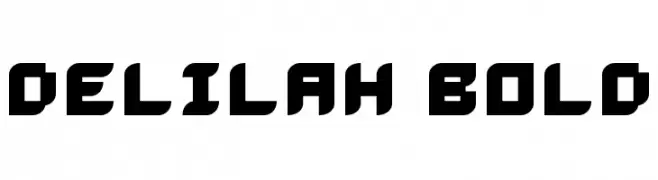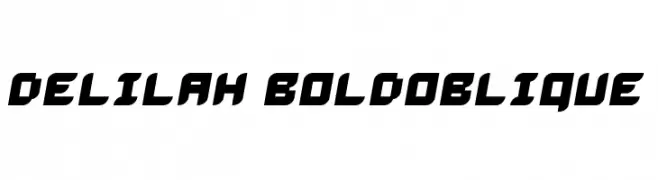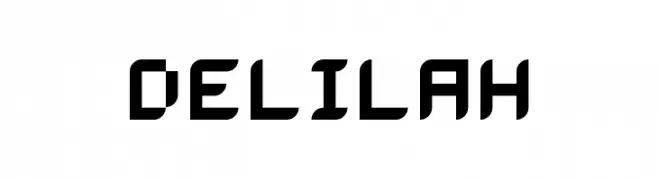
( Anigma New Media - www.anigma.fsnet.co.uk/an/anigma-fonts.html )
An organic, textured font with jagged edges, resembling decaying leaves.
( Fonts by Spork Thug Typography - Josh Wilhelm - www.lifewithouttaffy.com/taffy/blog )
A bold, edgy font with sharp angles and a modern feel.
( ADT )
A bold, angular font with a geometric and edgy design.
( Fonts by Matthew Welch - www.squaregear.net/fonts/ )
A futuristic, angular font with an italic slant, inspired by LED displays.
( Fonts by Matthew Welch - www.squaregear.net/fonts/ )
A digital, segmented font inspired by LED displays, perfect for tech-themed designs.
( Fonts by Matthew Welch - www.squaregear.net/fonts/ )
A digital, grid-like font inspired by LED displays with a modern, geometric style.
( Fontage Canada )
A modern, geometric font with thin strokes and artistic design.
A modern, geometric font with a futuristic and clean design.
( Fonts by Utopiafonts )
A bold, geometric font with a futuristic and edgy style.
A decorative and modern font with elegant swirls and a playful yet sophisticated style.
( Font Environment - www.fontenvironment.com/ )
A calligraphic mirror writing font with elegant curves and historical charm.
( Font Environment - www.fontenvironment.com/ )
A bold, calligraphic font with a mirror-writing style and artistic flair.
( FontMart - fontmart.com/ )
A distressed, grungy font with a rough, eroded texture.
( Fonts by www.typodermicfonts.com - Ray Larabie )
A modern vintage font with tall, narrow letterforms and rounded edges.
( Fonts by www.typodermicfonts.com - Ray Larabie )
A geometric font with a shadow effect, offering a bold and three-dimensional appearance.
A bold, distressed font with a textured, weathered appearance.
( Fonts by www.blambot.com )
A playful, bold handwritten font with rounded, consistent strokes.
( Fonts by www.blambot.com )
A bold, playful handwritten font with rounded, slanted characters.
( Fonts by www.blambot.com )
A playful, handwritten-style italic font with bold, rounded strokes.
( Fonts by www.typodermicfonts.com - Ray Larabie )
A futuristic, angular font with a dynamic slant and bold lines.
( 76Type - 76design.com )
A playful, rounded font with a retro aesthetic and consistent stroke width.